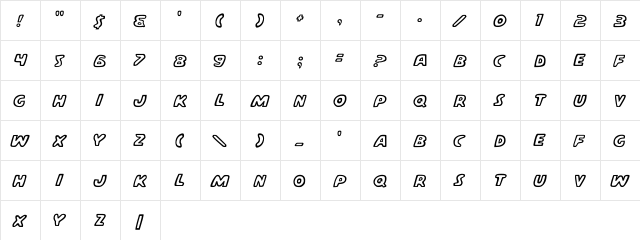
Casper Comics Regular
Design Context for Casper Comics Typeface
Casper Comics trades formality for fun, with bouncy, characterful letterforms that bring warmth and energy to any project.
Font Pairing: Pairs well with a rounded or humanist sans for body copy, maintaining the friendly tone without relying on Casper Comics to carry extended reading.
Pro Tip: Use Casper Comics at larger display sizes where its expressive character can land. Pair with a clean, simple sans for body copy to maintain readability.